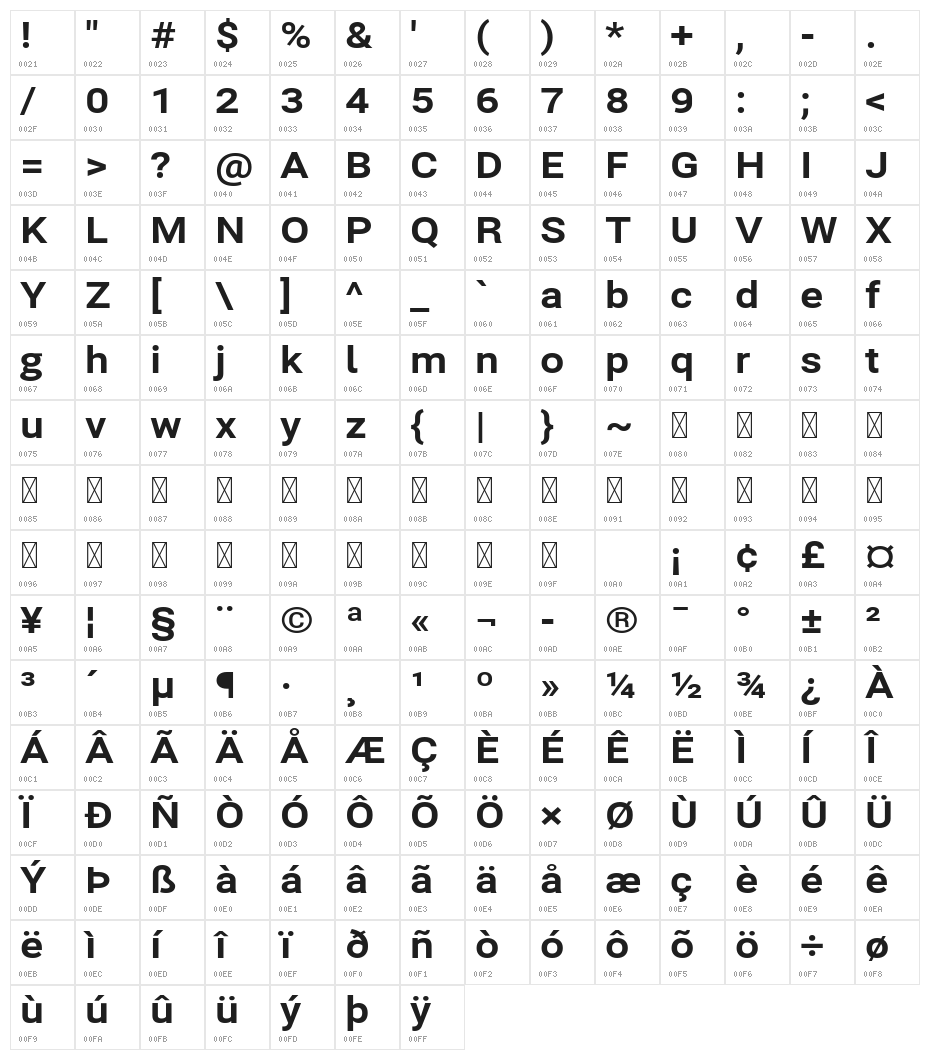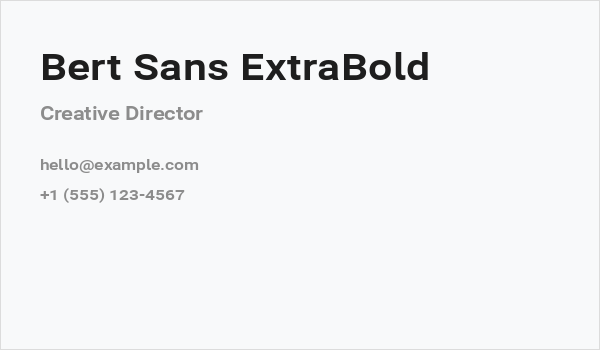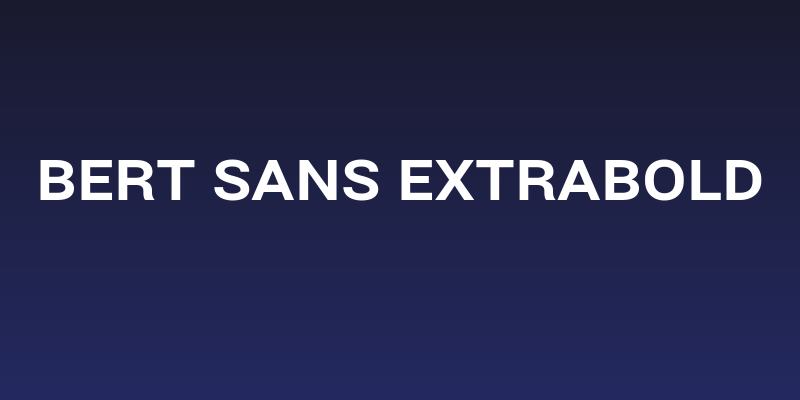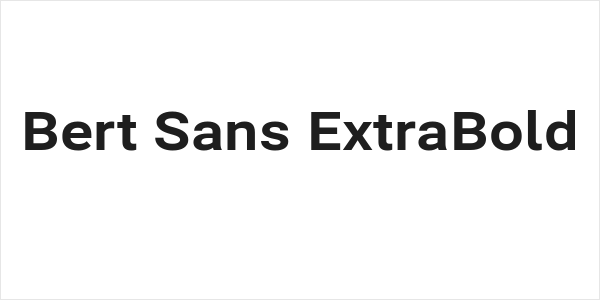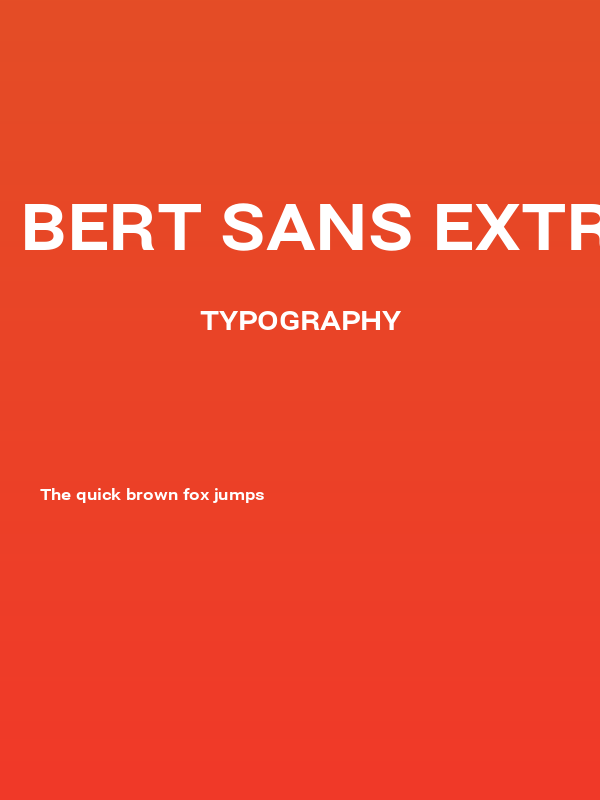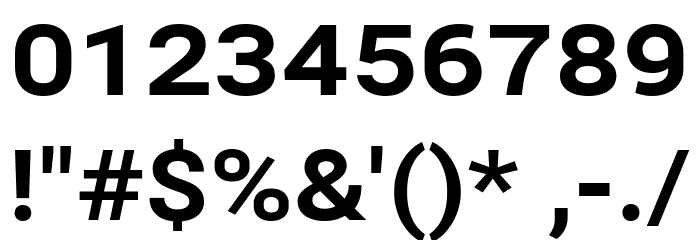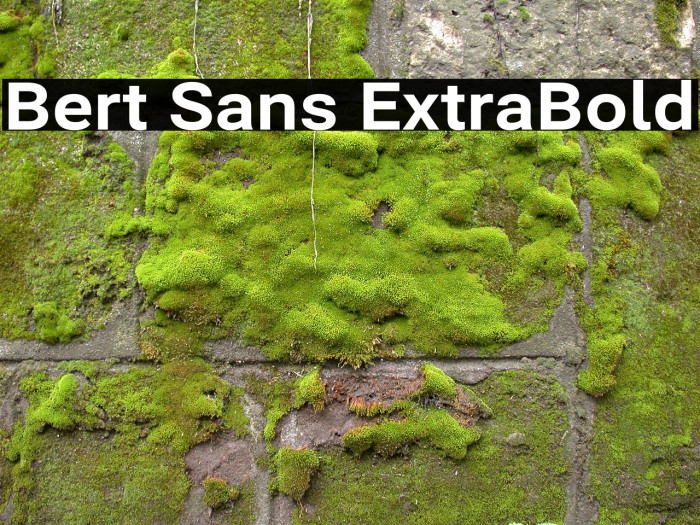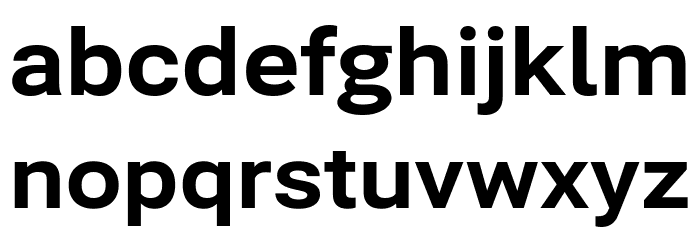
Bert Sans ExtraBold Font
Bert Sans ExtraBold Description
This font features a bold and modern sans-serif design, characterized by clean lines and a strong presence. The uppercase letters are uniform in height, providing a balanced and structured appearance. The lowercase letters maintain a consistent weight, ensuring readability and clarity. Numerals are straightforward and align well with the overall style, while special characters are crafted to match the boldness of the font. The overall impression is one of strength and modernity, making it suitable for a variety of digital and print applications.
| Proposed Projects | Ideal for branding, advertising, headlines, and digital media where a strong and modern impression is desired. |